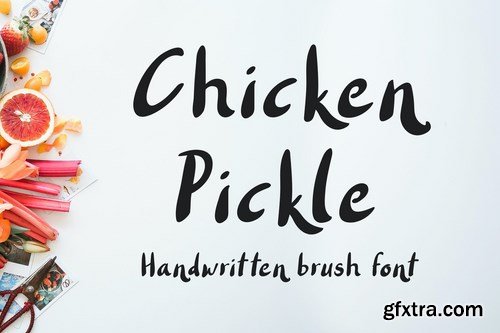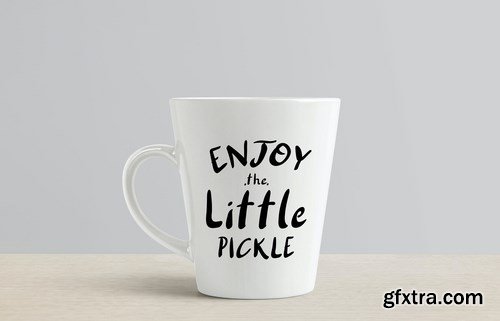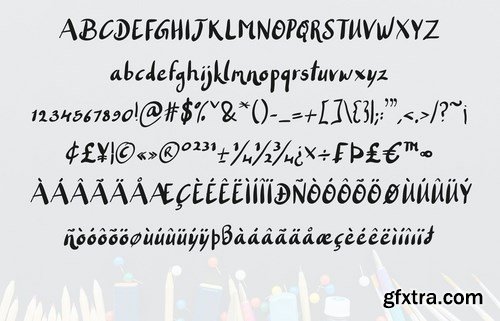
Chicken Pickle is new playfull handwritten brush font.
Bold and smooth quirky brush style perfectly fits for Hand lettering Projects, Invitations, Kids Projects, video titles and much more. Included Uppercase, Lowercase, Numbers, Punctuation's/Symbols and Multilingual Support. Included Files : Chicken Pickle.otf, Chicken Pickle.ttf, Chicken Pickle.woff2